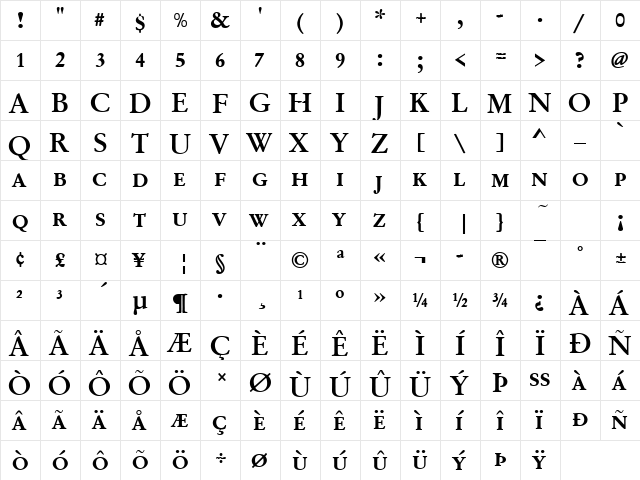
GaramondNo2DCDMed Regular Font Preview
GaramondNo2DCDMed Regular
Design Context for GaramondNo2DCDMed Typeface
GaramondNo2DCDMed offers clean, dependable letterforms without strong stylistic allegiance, making it a practical choice for designers who need flexibility.